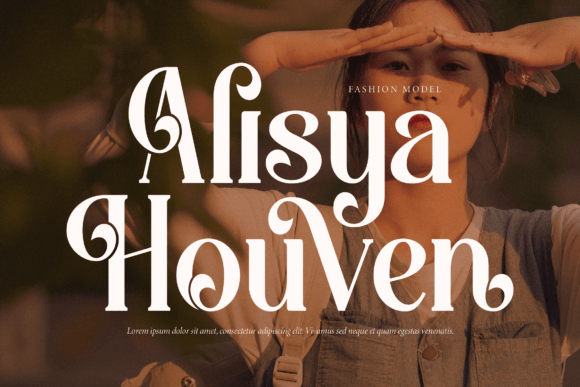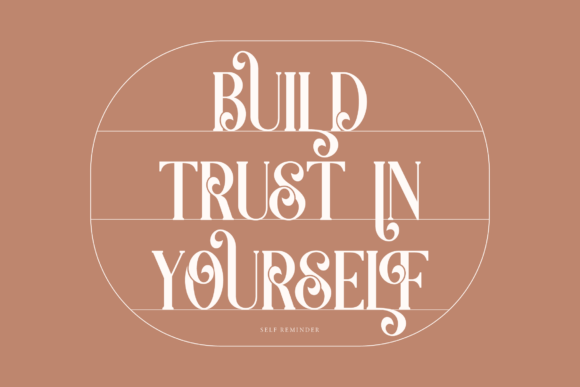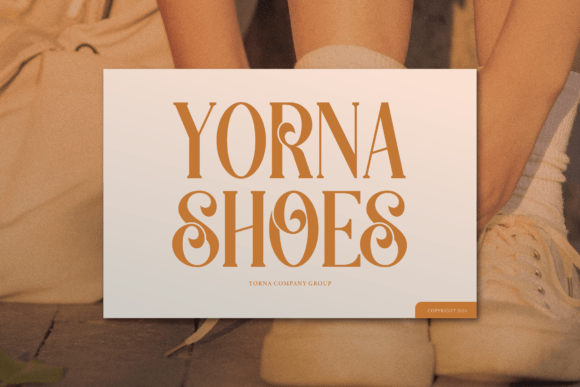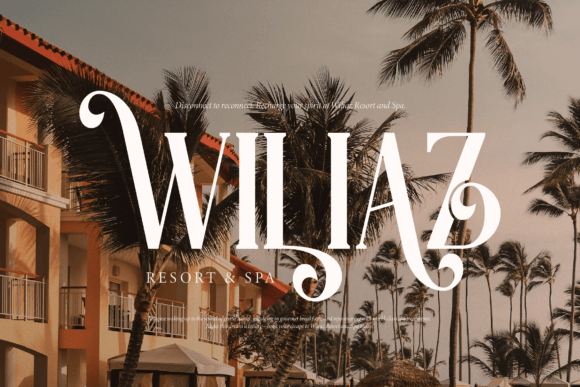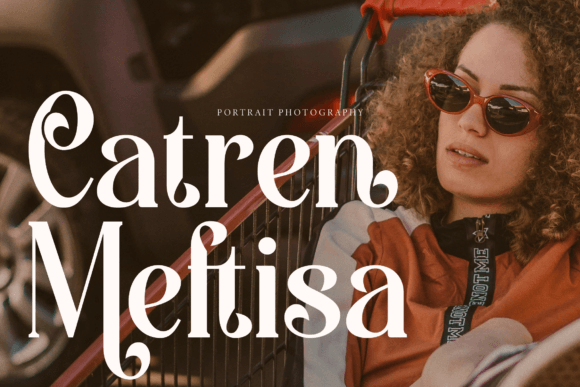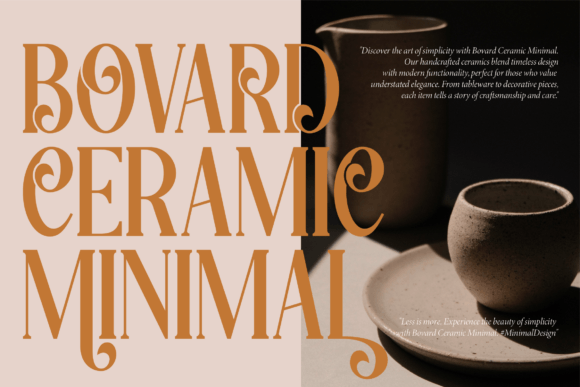
Introduction to Aslin Alodian Font
Aslin Alodian is a modern and chic serif font that is perfect for logos, branding projects, homeware designs, product packaging, mugs, quotes, posters, shopping bags, t-shirts, book covers, name card, invitation cards, greeting cards, label, photography, watermark, special events, and all your other lovely projects that need a Modern Display Serif taste.
Key Features of Aslin Alodian Font
Why Choose Aslin Alodian Font?
Aslin Alodian Font offers exceptional quality and versatility, making it a valuable addition to your design toolkit. Whether you’re creating for personal projects or commercial use, Aslin Alodian Font delivers professional results.